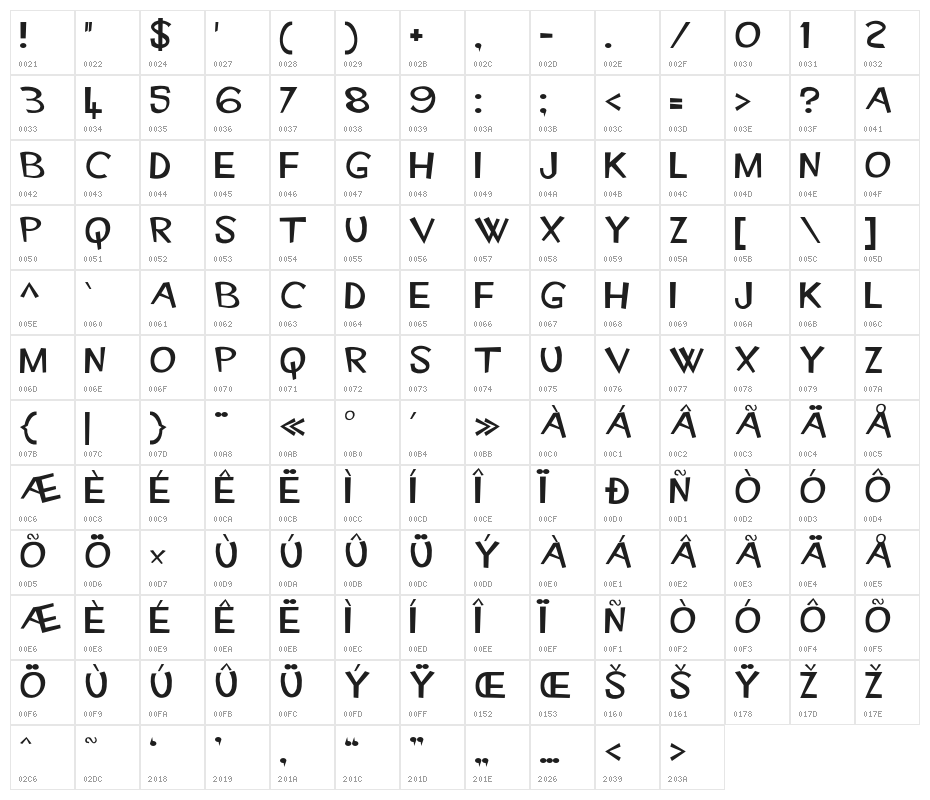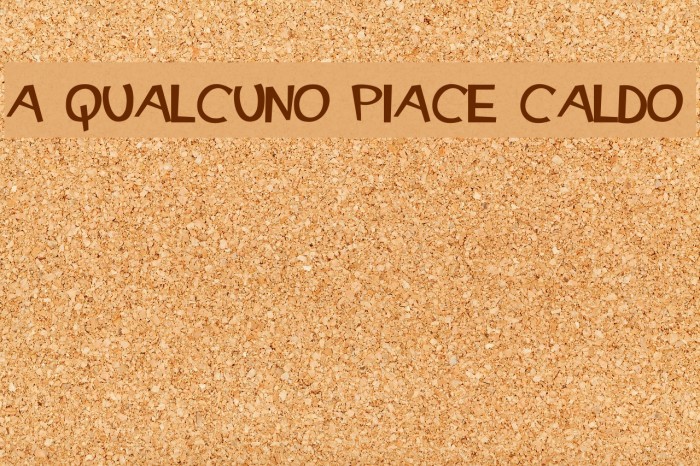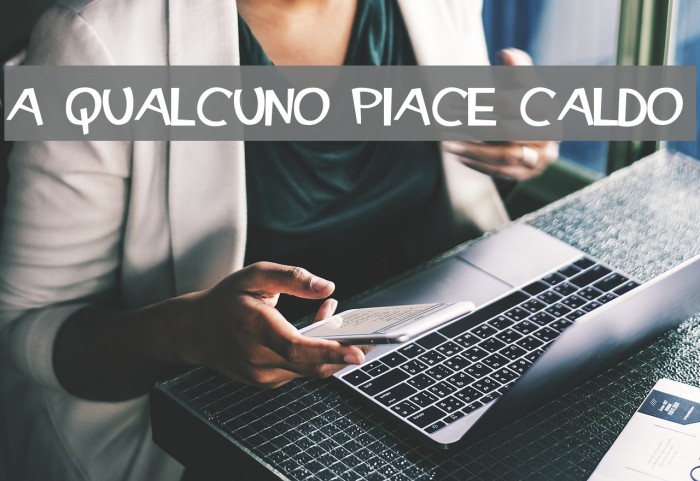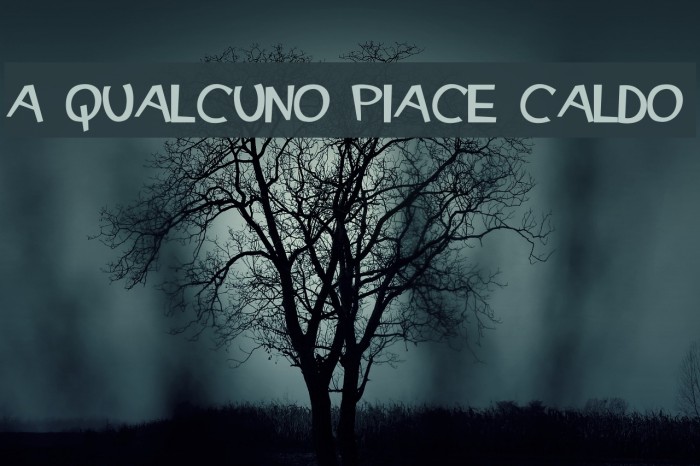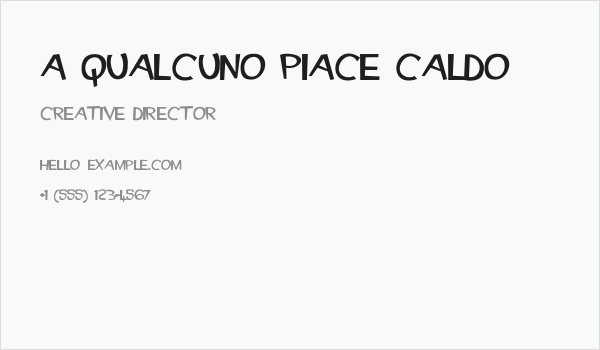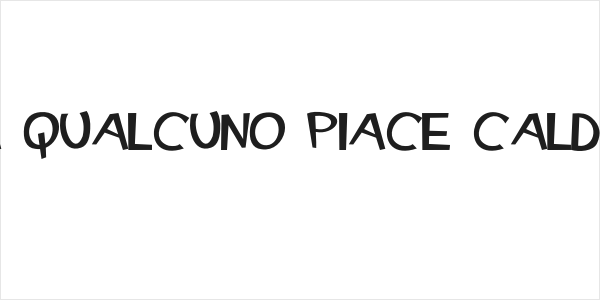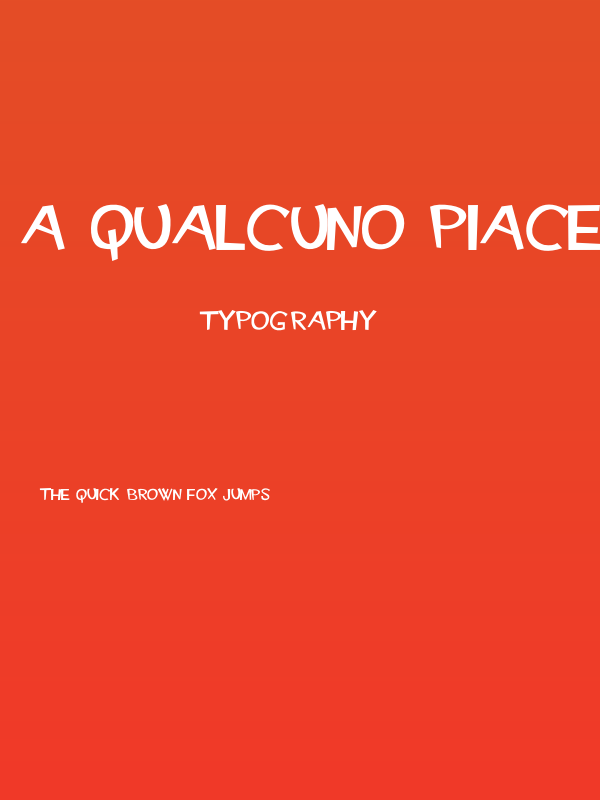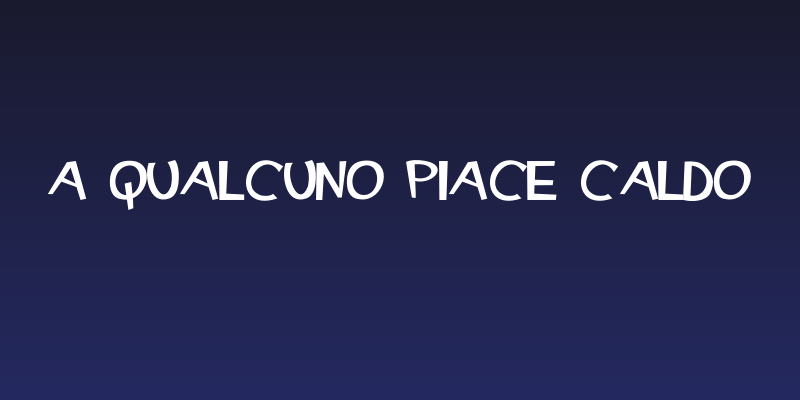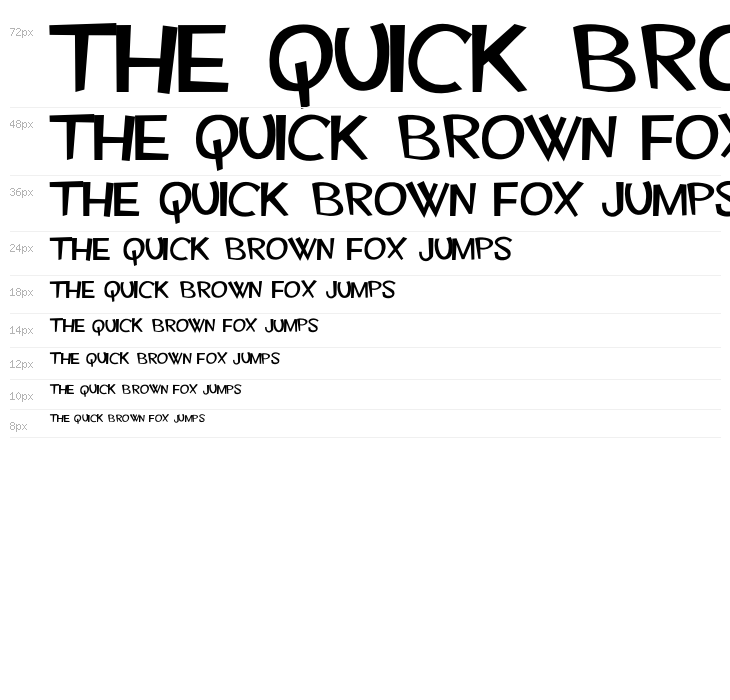
A Qualcuno Piace Caldo Font
A Qualcuno Piace Caldo Description
This font features a playful and dynamic style with a slightly irregular and hand-drawn appearance. The characters are bold and have a whimsical quality, with varying stroke widths that add to its lively character. The uppercase letters are distinct with a slight slant, giving them a sense of movement. The lowercase letters maintain the same playful style, complementing the uppercase set. Numbers and special characters are designed to match the overall aesthetic, making them suitable for creative and informal applications.